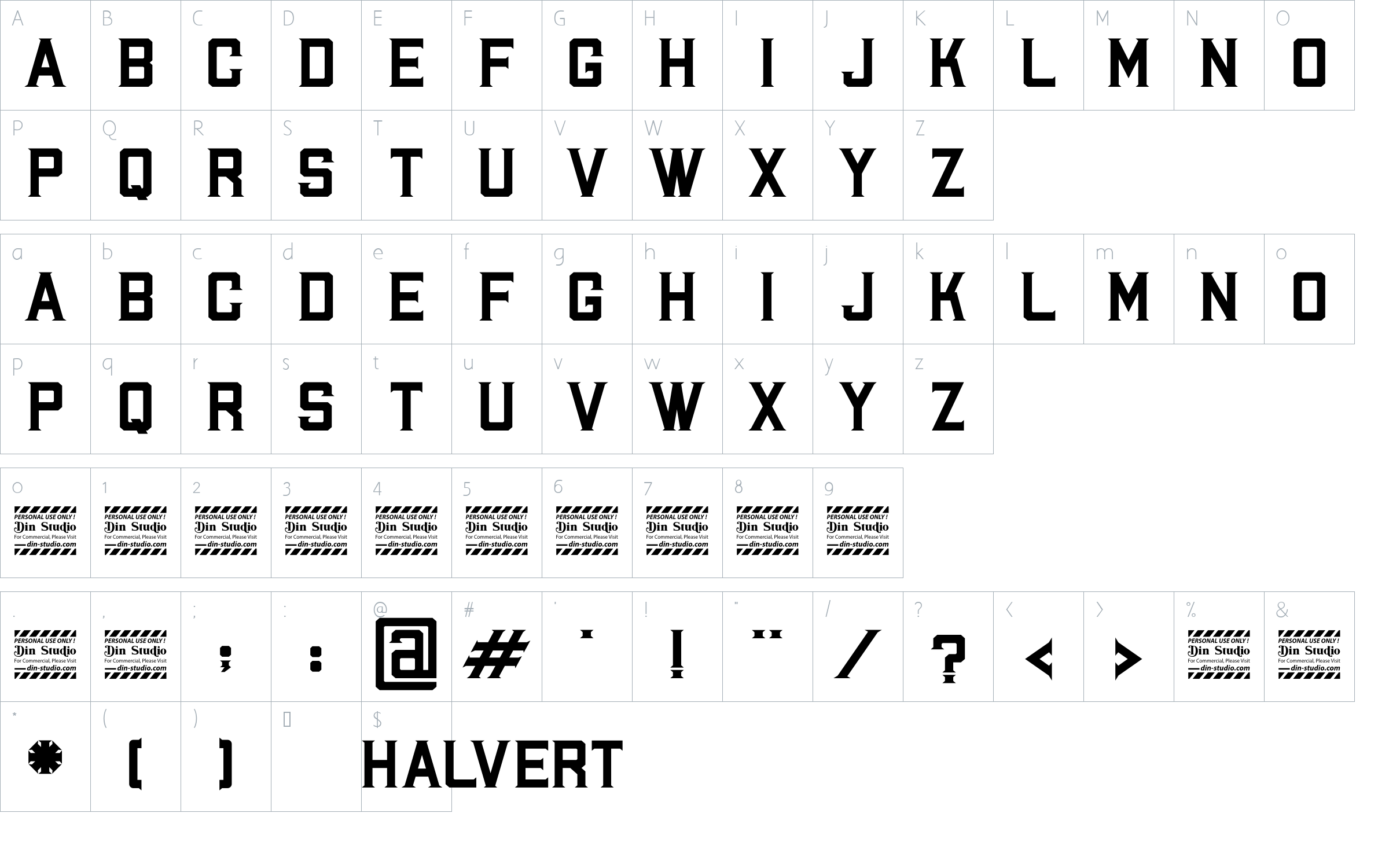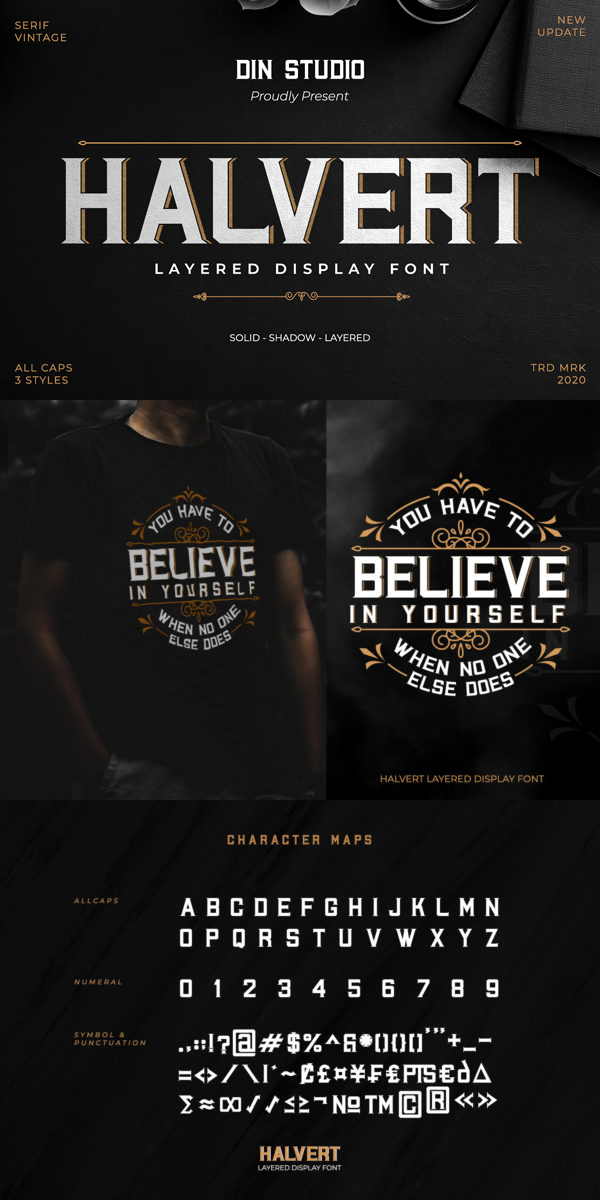
Halvert Font
About Halvert
Halvert is an amazing display font. It is suitable for any project like branding, merchandise, advertising, book cover, cards, t-shirt print and others. The font includes full set of uppercase letters, numerals, and punctuation. Don’t worry, our font always includes Multilingual Support to make your branding reach a global audience.
Halvert:
- Accents (Multilingual characters)
- Numerals and Punctuation (OpenType Standard)